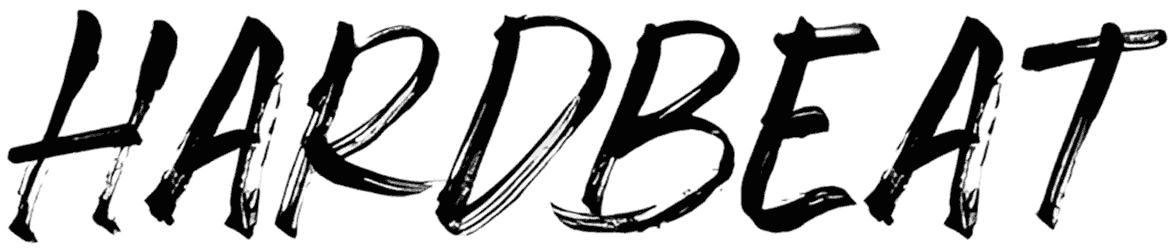
Hardbeat Font
Hardbeat is a natural hand brush font that looks modern! You can apply this font to any typography wherever you wish for a creative paintbrush element. The bold characters are very stylish, and what makes them unique is a rough, faded design that seems aggressive.
Lower case alphabets are not included in the set of letterforms provided. Hardbeat is energetic which means it’s excellent for places similar to books, CD covers, flyers, adverts, and branding as it delivers friendly vibes.